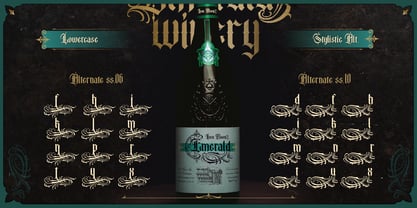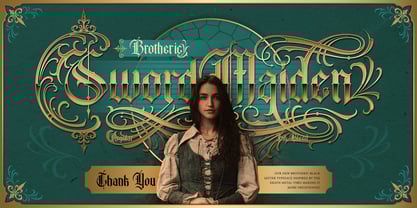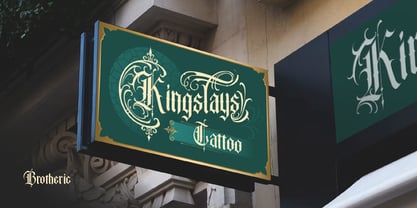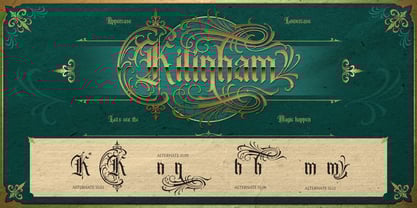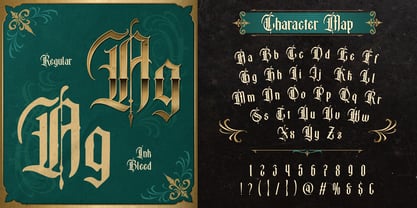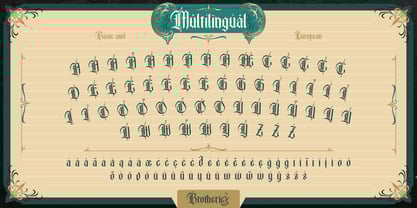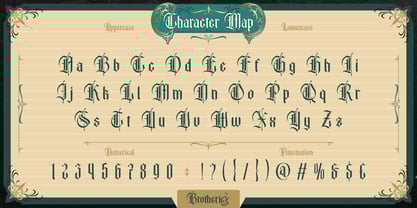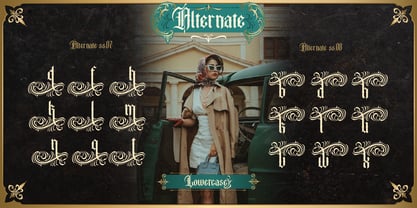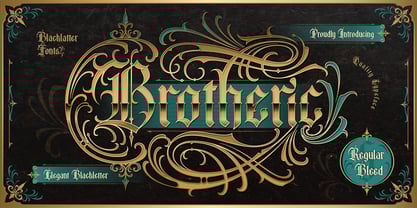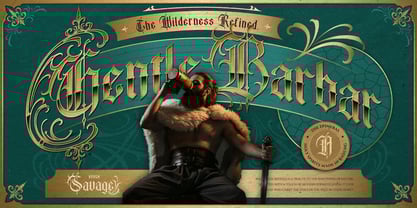
Brotheric
Proudly Present Brotheric, an elegant and ornamental blackletter font. A beautiful blend of classic European forms and modern editorial style. Designed with strong letterforms and sharp angles, this font stays readable—even for longer texts.
Brotheric brings a majestic and timeless feel, perfect for designs that aim for a “luxury meets vintage” aesthetic. It belongs to the gothic family, but with a refined tone that makes it versatile for many design styles.
Ideal for tattoo designs, packaging, heritage branding, experimental magazine headlines, and music posters.
Features:
• Uppercase & Lowercase
• Number
• Punctuation
• Alternate
• Multilingual